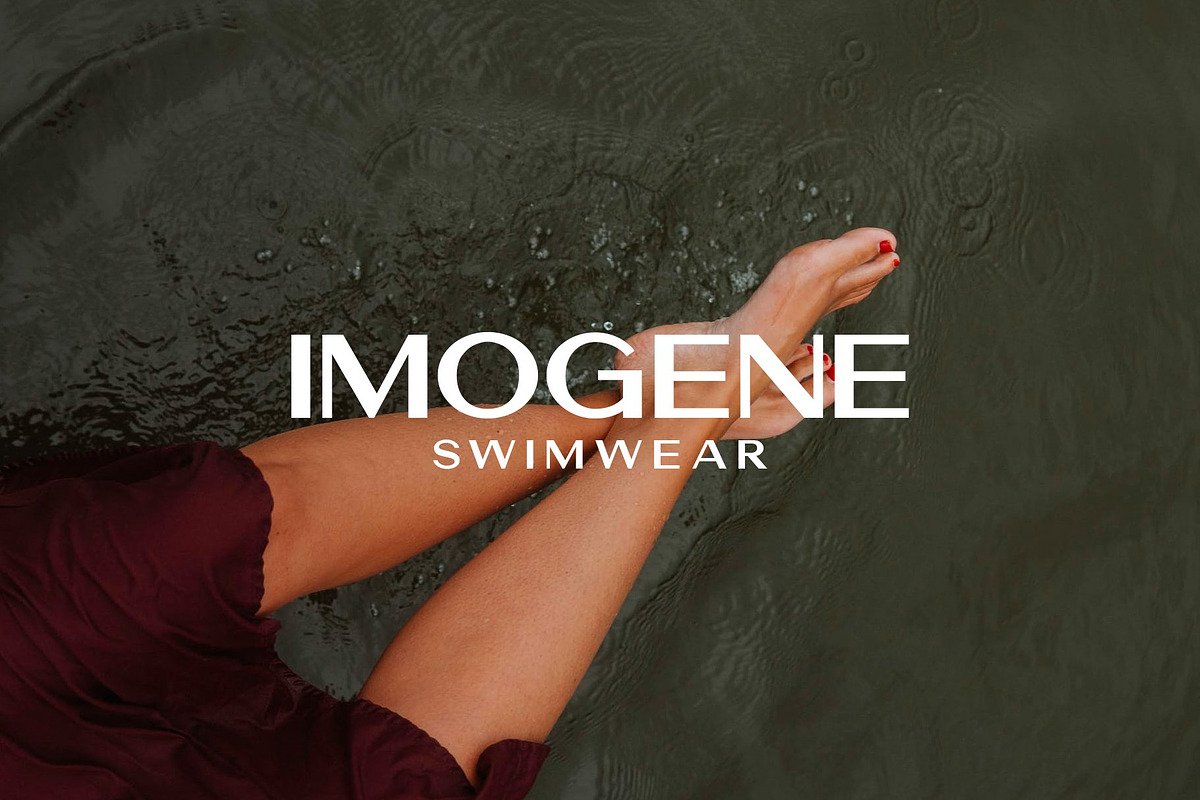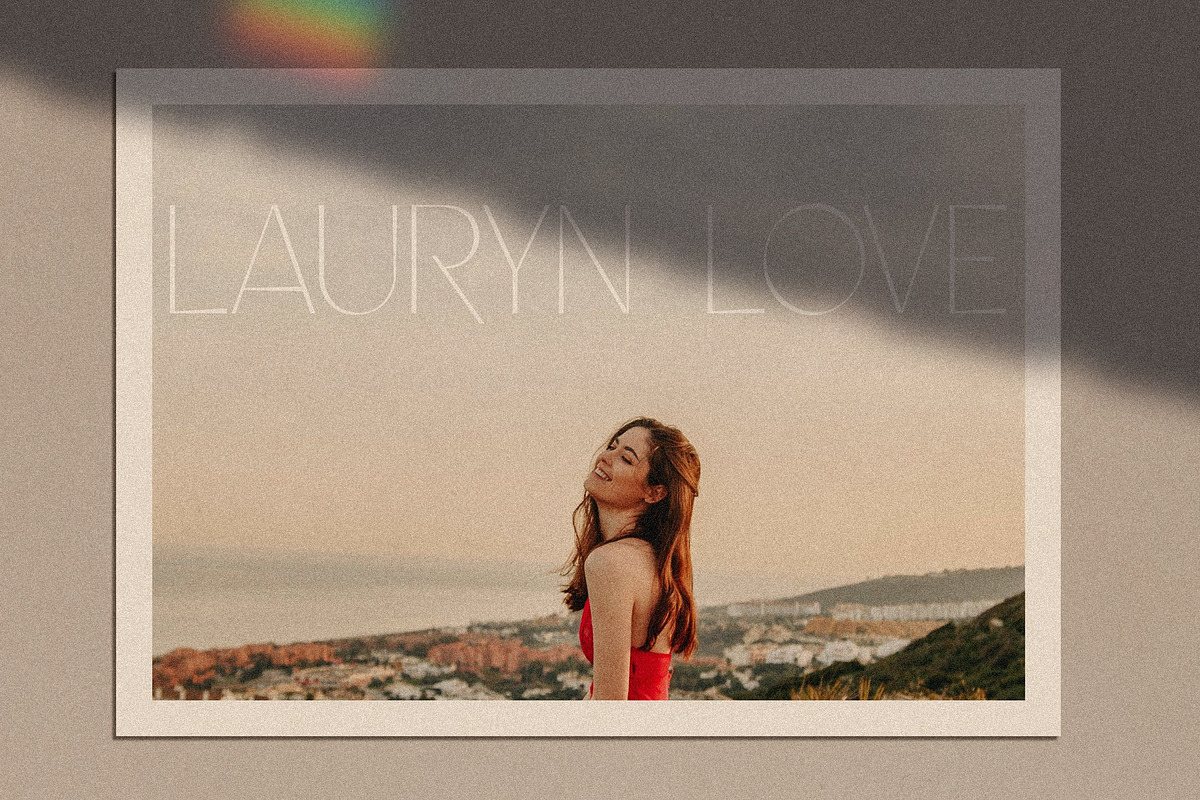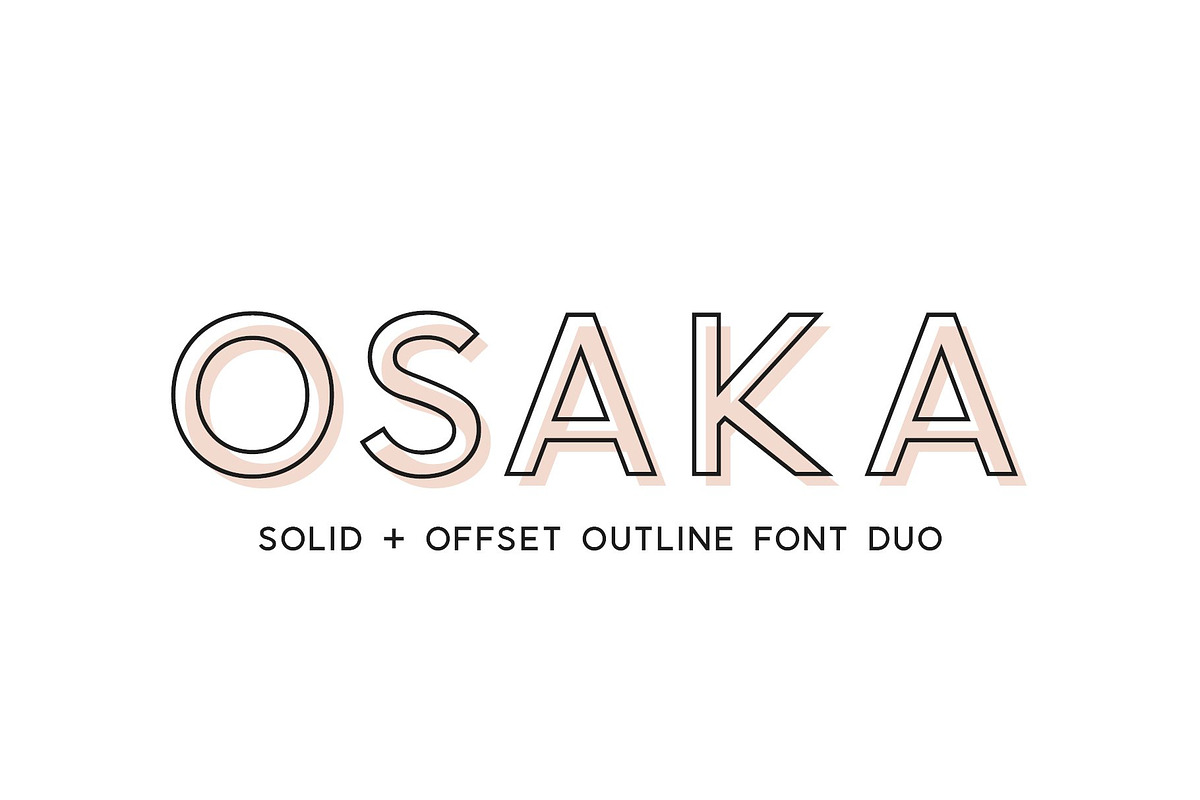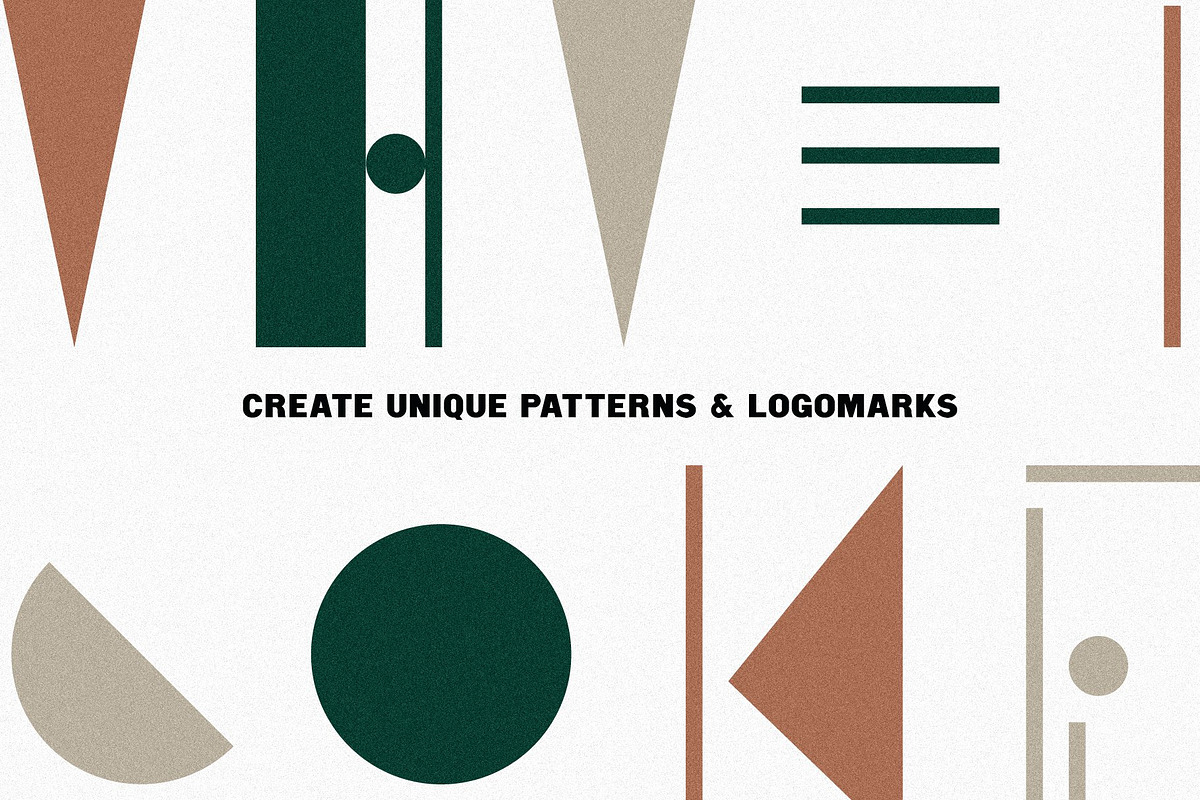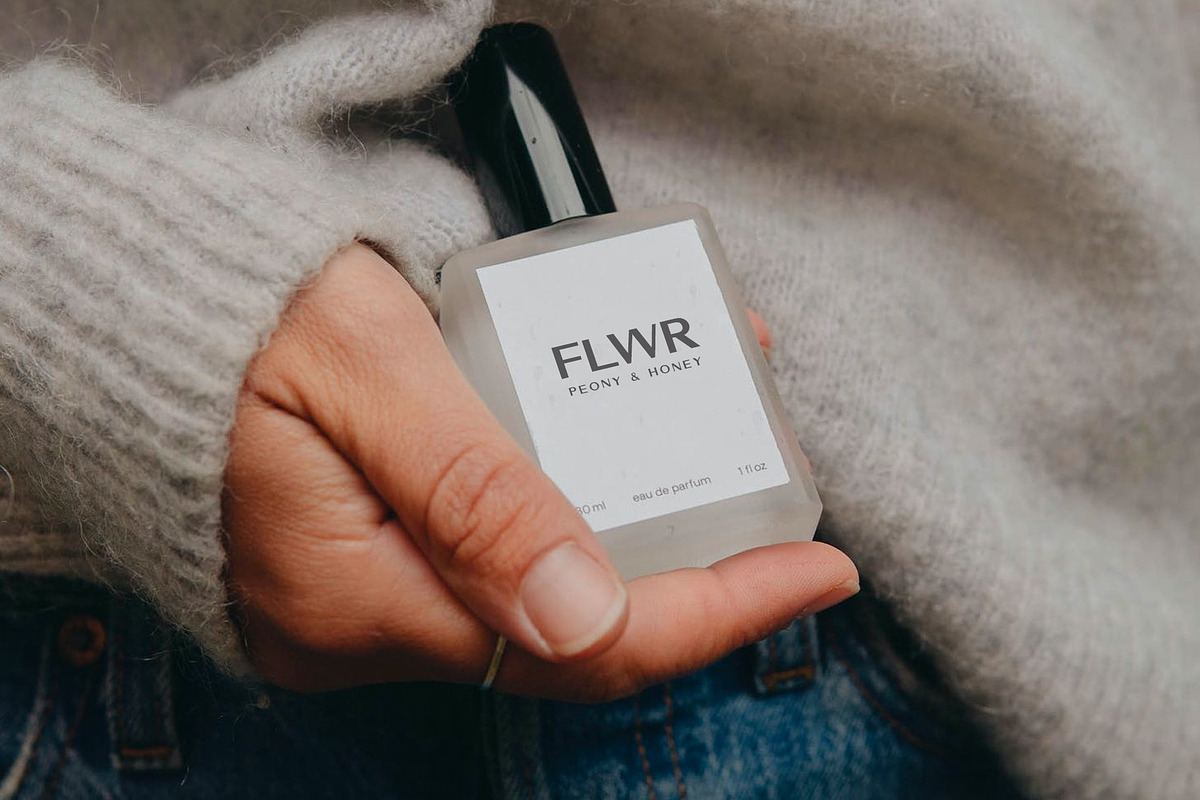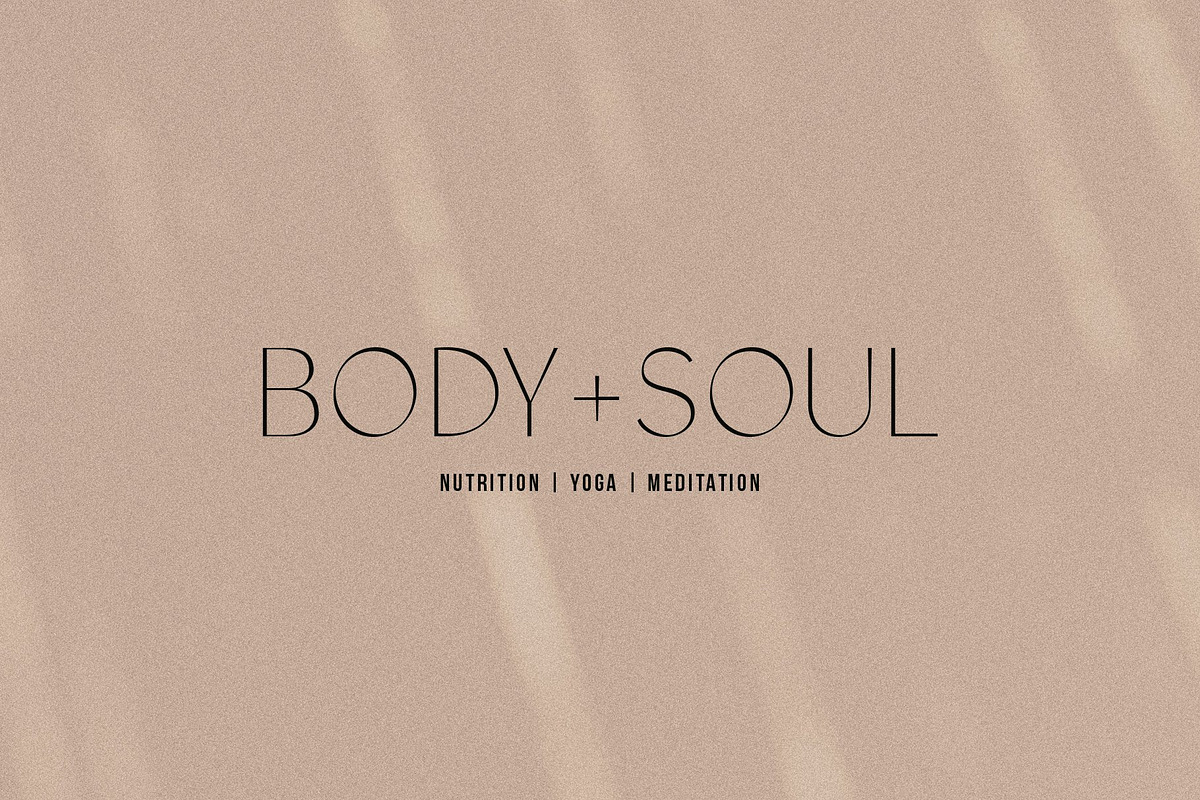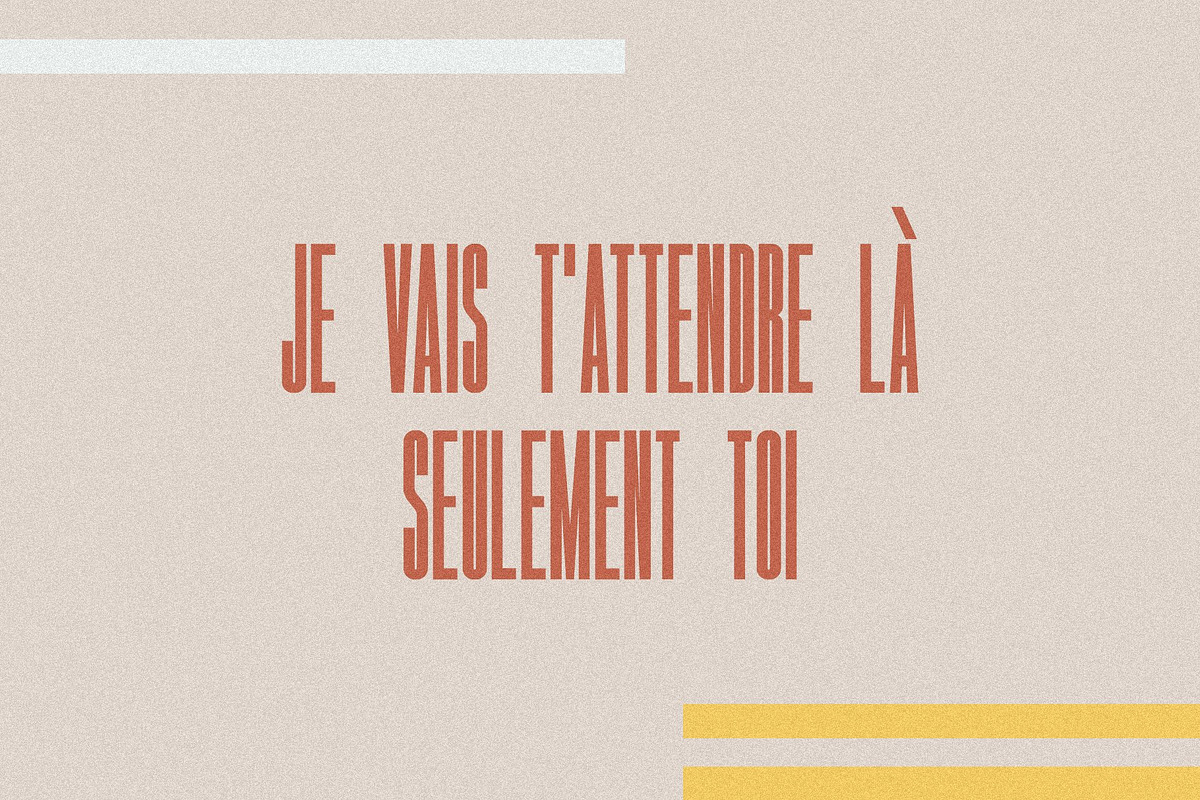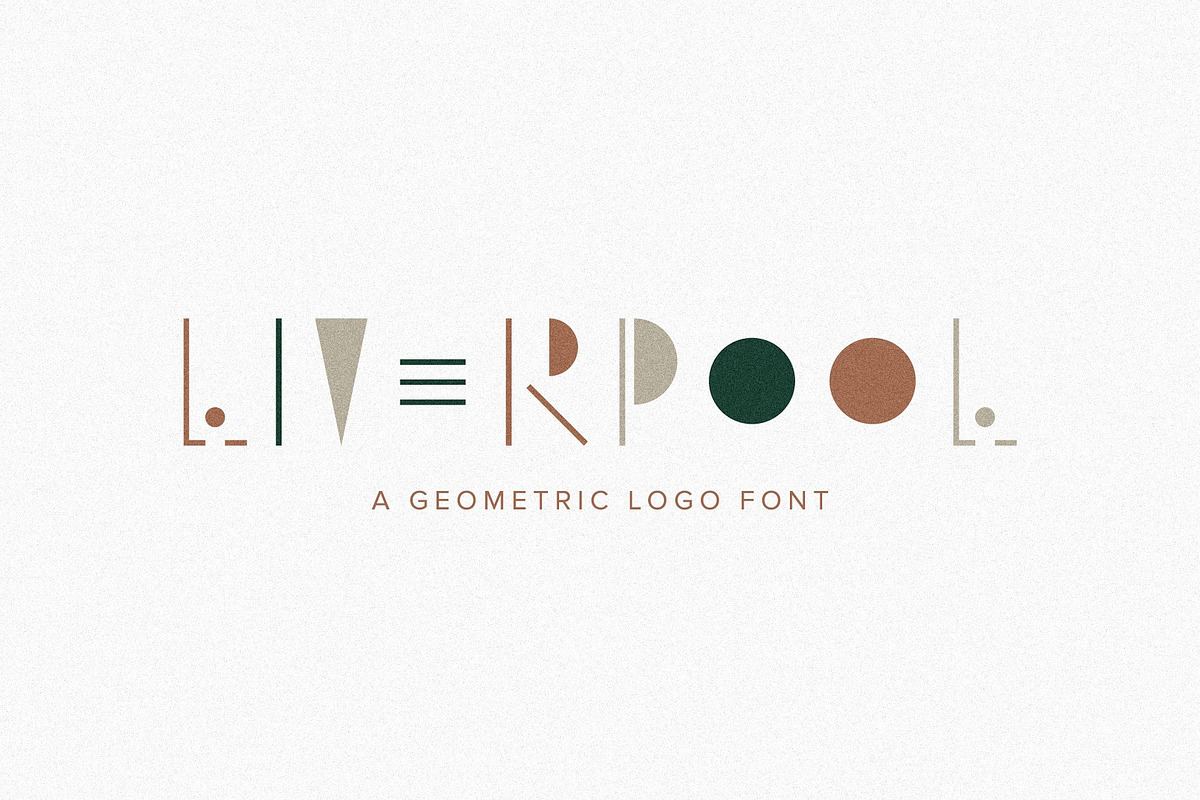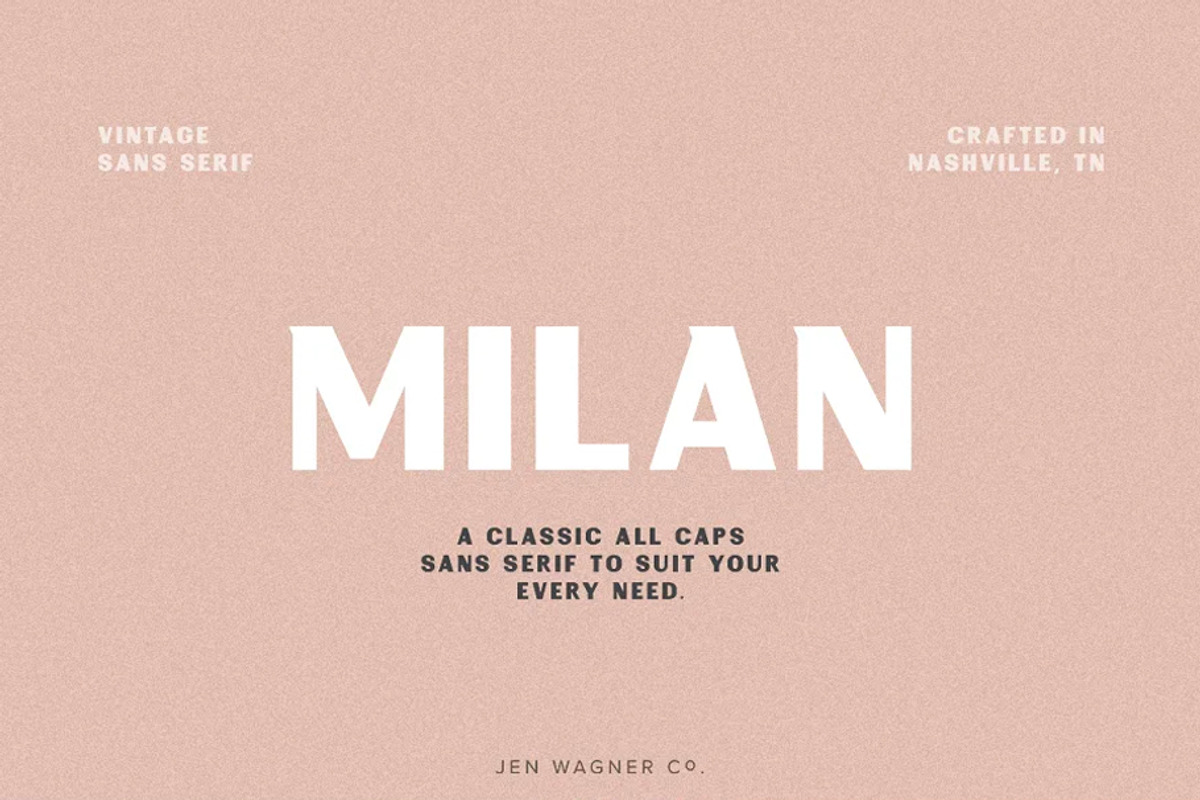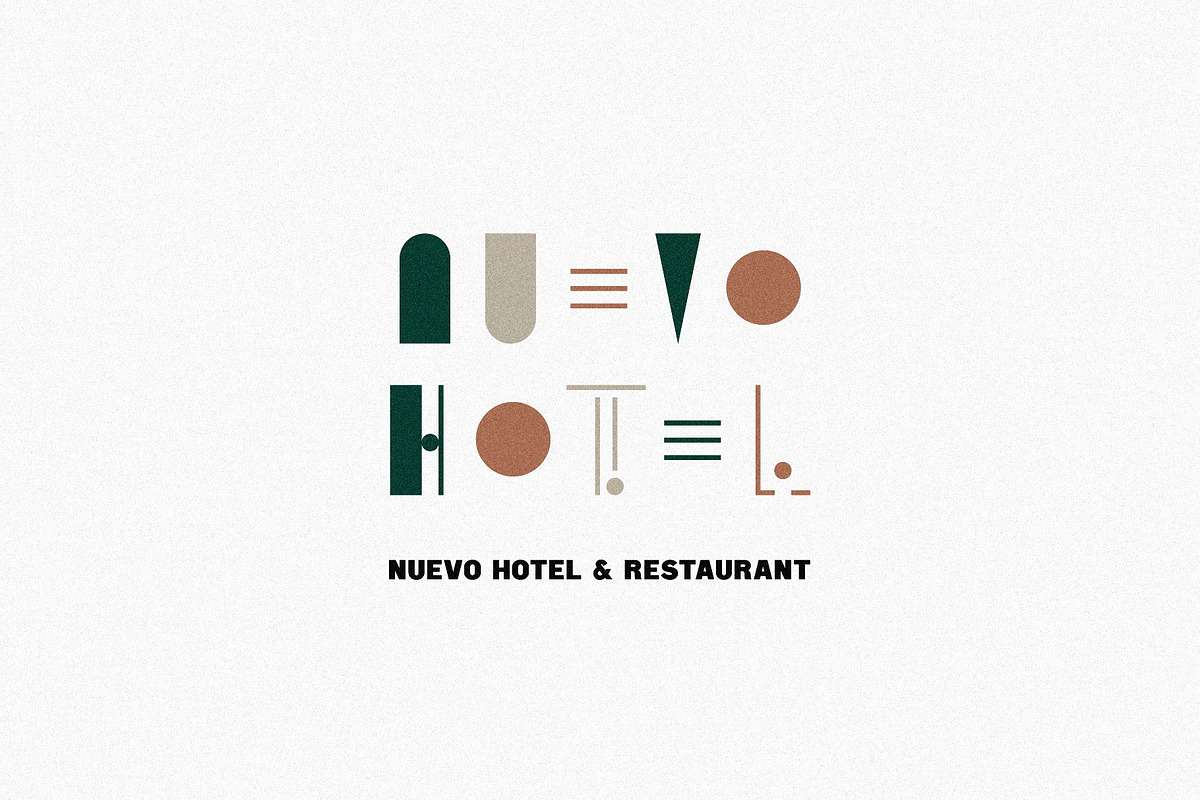
Modern Logo Sans Font Bundle
Introducing my second ever font bundle!
This bundle features 10 of my favorite sans serifs for creating gorgeous logos and quotes. You'll find popular fonts like Versailles, Milan, and Knoxville, as well as a few of my favorites like Norfolk, Jasper, Sucre, and more.
Versailles: https://creativemarket.com/jenwagnerco/2961265-Versailles-A-Classic-Sans
Milan: https://creativemarket.com/jenwagnerco/2028805-Milan-A-Vintage-Sans-Serif
Jasper: https://creativemarket.com/jenwagnerco/3814734-Jasper-Font-with-Extras
Cairo: https://creativemarket.com/jenwagnerco/3402225-Cairo-A-Complementary-Sans-Duo
Cypress: https://creativemarket.com/jenwagnerco/4851972-Cypress-A-Ligature-Sans
Norfolk: https://creativemarket.com/jenwagnerco/3181772-Norfolk-A-Traditional-Sans
Knoxville: https://creativemarket.com/jenwagnerco/1485220-Knoxville-A-Logo-Creating-Font
Liverpool: https://creativemarket.com/jenwagnerco/3124586-Liverpool-A-Geometric-Logo-Font
Osaka: https://creativemarket.com/jenwagnerco/2835096-Osaka-Designer-Font-Duo
Sucre: https://creativemarket.com/jenwagnerco/2706772-Sucre-Vintage-Condensed-Sans